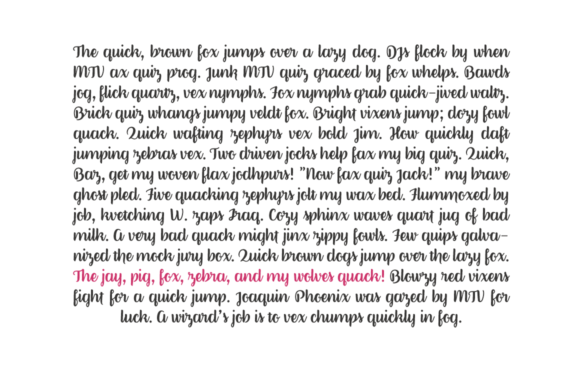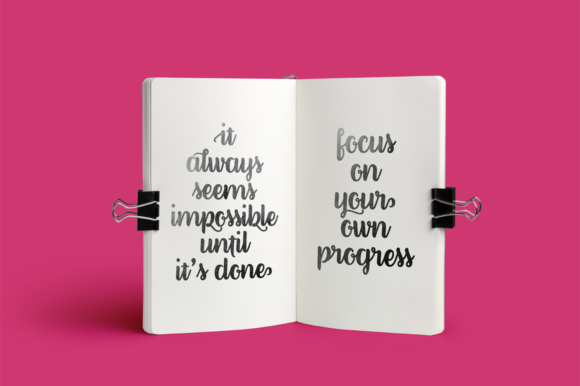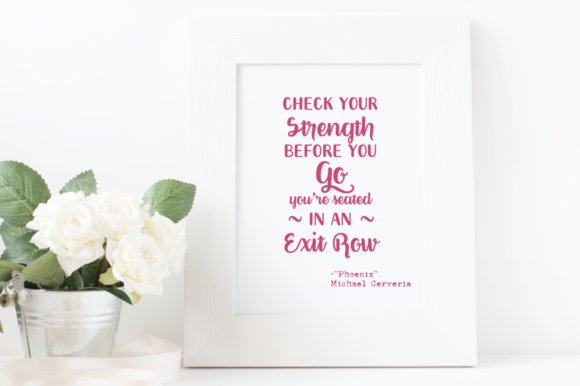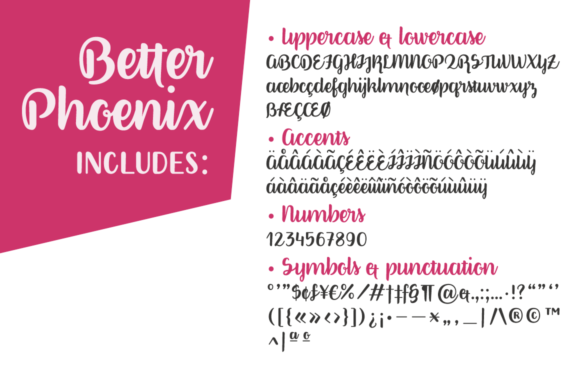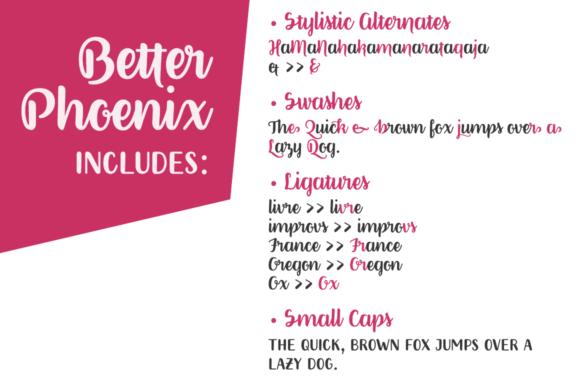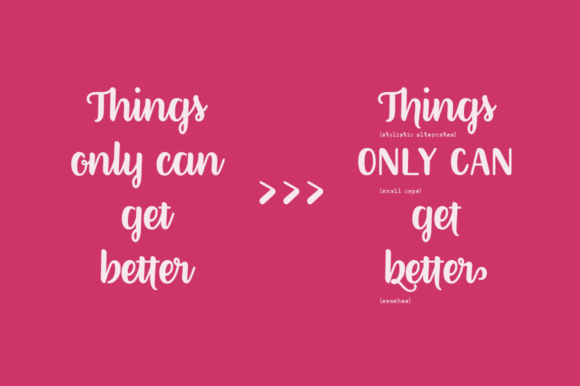
The Designer’s Dream: Better Phoenix Font
I still remember the frustration of working on a branding project for a craft business, searching for the perfect font that could capture the handmade, yet polished feel of their products. The client wanted a font that was playful, yet professional; a font that could elevate their packaging and social media presence. After hours of scrolling through font libraries, I stumbled upon Better Phoenix, a beautiful brush font that exceeded my expectations.
What Makes Better Phoenix Special?
Better Phoenix is a polished brush font designed with stylistic alternates, swashes, and ligatures. Its smooth lines and clean structure are carefully crafted from handmade brush strokes, giving it a unique playfulness that’s hard to find in traditional script fonts. This font is perfect for:
• Packaging and branding, where a professional yet handmade feel is desired
• Quotes, social media posts, and postcards, where a touch of personality is needed
• Display font in editorial design, presentations, and logotype design, where legibility and style are crucial
• ✨ Smooth and clean lines that give it a professional feel
• ✅ Highly legible, making it perfect for display font uses
• 🎨 Stylistic alternates, swashes, and ligatures that add a touch of personality
• 🖌️ Handmade brush strokes that give it a unique, crafted feel
• ⚠️ Some users may find the font too delicate for certain design applications
• 🤔 Limited use of uppercase letters, which may require creative workarounds
Better Phoenix was designed with the intention of capturing the essence of handmade craftsmanship in a digital font. The designer, inspired by traditional brush calligraphy, aimed to create a font that was both polished and playful. The result is a font that feels like it was crafted with love and care, making it perfect for designers and crafters alike.
Q: What is the best use for Better Phoenix?
A: Better Phoenix is perfect for packaging and branding, quotes, social media posts, and postcards. It’s also great as a display font in editorial design, presentations, and logotype design.
Q: Is Better Phoenix suitable for body text?
A: While Better Phoenix is highly legible, it’s recommended to use it for display purposes or short paragraphs. For longer body text, a serif font may be more suitable.
Q: Can I use Better Phoenix with craft cutters?
A: Yes, Better Phoenix is a favorite among crafters and craft cutters due to its smooth lines and clean structure. It’s perfect for creating beautiful, professional-looking crafts.